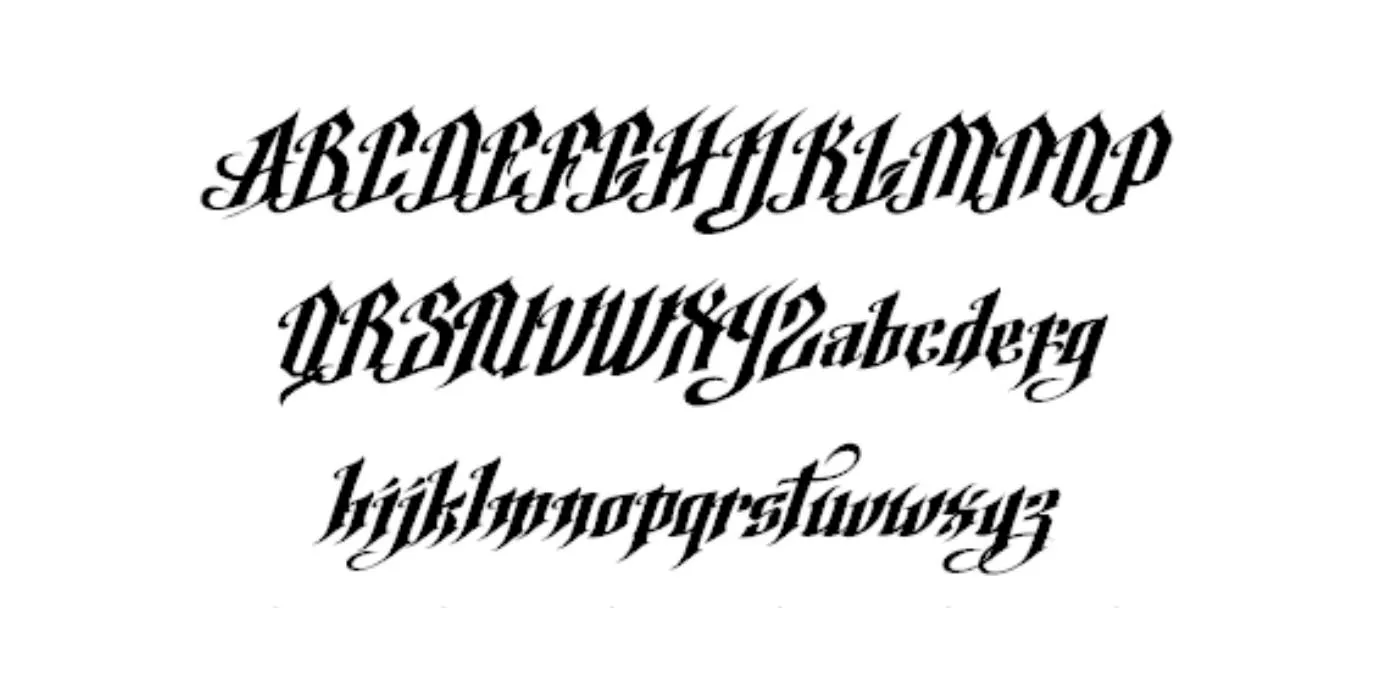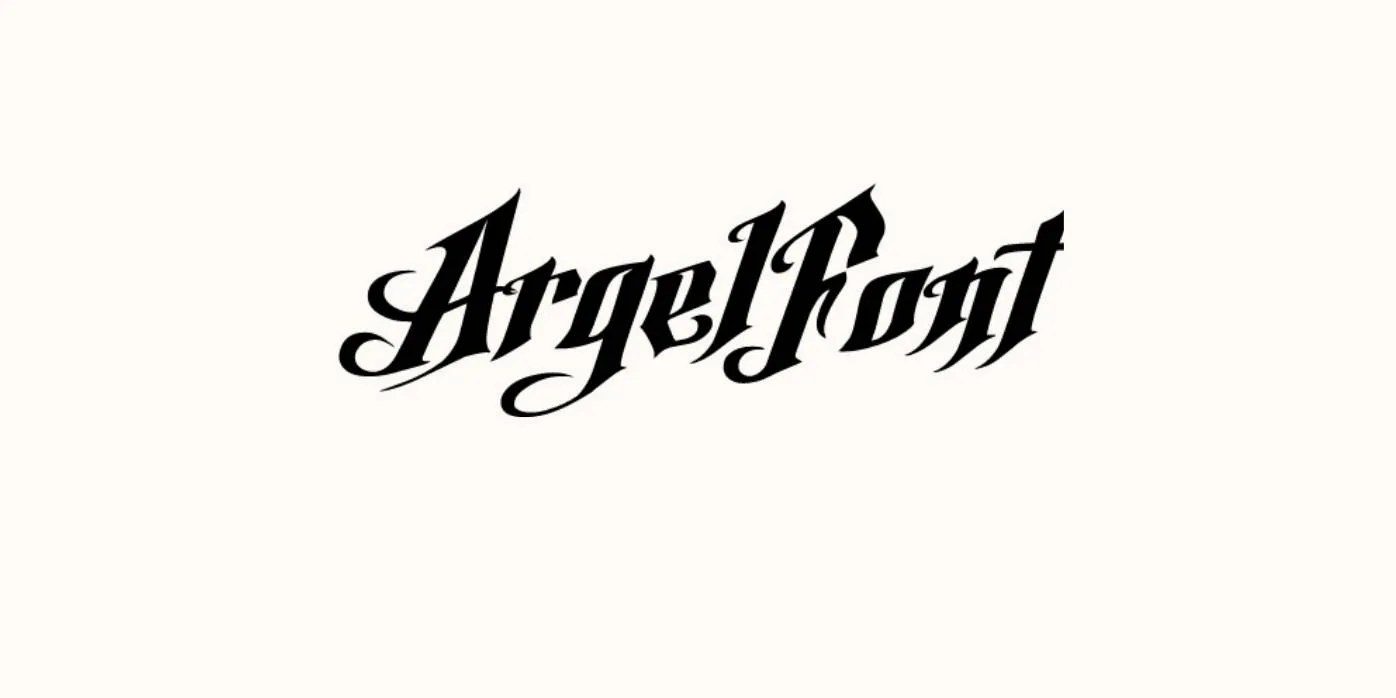
Argel Font
Argel Font is a decorative typeface that was designed by Billy Argel Fonts, It has very amazing characters and glyphs. The characters of this typeface are amazing for some reason. They have an attractive and stylish look with boldness. This font supportable devices include computers, Macs OS, IOS, and Andriod.
The texture will look stunning on your designs and projects.